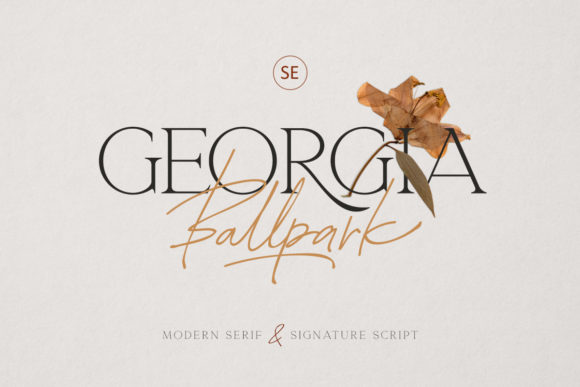
Introducing the game-changer for signature emails: Georgia Ballpark Font. This duo font, created by saridezra, is the perfect mix of elegance and versatility. Whether you're designing a wedding invitation or a business card, Georgia Ballpark Font will elevate your project to the next level.
The serif and script combination is a match made in heaven, giving you the best of both worlds. The serif font is ideal for formal documents, while the script font adds a personal touch to your design. With Georgia Ballpark Font, you can easily create a signature email that will impress your clients and colleagues alike.
But that's not all. This font is also perfect for social media graphics, logos, and branding materials. Use it to create a stunning Instagram post or a professional-looking LinkedIn banner. The possibilities are endless.
Georgia Ballpark Font is more than just a font. It's an emotion. It's the feeling of confidence and sophistication that comes with knowing you have the best font for signature emails. It's the excitement of seeing your ideas come to life in ways you never thought possible.